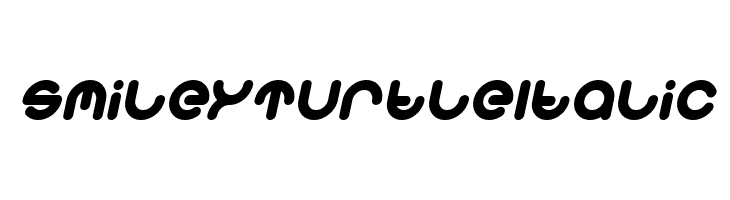
A playful, bold, and rounded italic font with a whimsical style.
A display font using iconic musician imagery for each character.
A playful handwritten font with smooth, rounded strokes and a lively appearance.
A jagged, distressed font perfect for spooky and mysterious themes.
A whimsical, decorative font with elegant swashes and flowing lines.
A graceful, handwritten script font with a flowing and elegant style.
A dynamic and elegant script font with fluid strokes and a graceful slant.
A bold, italicized script font with a playful, handwritten style.
A flowing, cursive script font with elegant, connected strokes and an italic slant.
A bold, 3D hollow italic font with a modern and dynamic style.